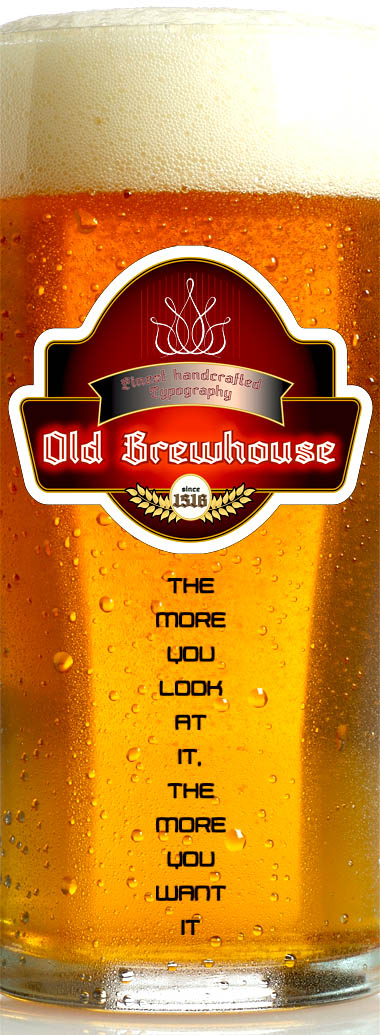
I like this o.o
The thick outlining strokes gives a nice add to the font. c=
my gosh this looks so coool
I raise my glass to you - very nice indeed.
Cool entry.
Nice. A real inline + blackletter and only the first entry ).
Absolutely fantastic! :)
Excellent blackletter. Getting thirsty...
What a marvelous font, pure and strong. Very hübsch : )
Greeeeat work, master! I'm waiting for the great fonts to come in the last days of this exciting Comp!
This is perfect. I love every glyph.
Very beer! I thought the inline areas could use more ornamental lines in the middle, but that would defeat the clarity that is achieved in the samples. Authentic look and feel.
Strong one, well rounded
LOVE IT
very nice '4'
This only lacks a long s.
Technically, a capital eszett plus _ch_ and _tz_ ligatures wouldn't be bad either.
Wonderfully shaped!
This only lacks a long s.
Technically, a capital eszett plus _ch_ and _tz_ ligatures wouldn't be bad either.
Wonderfully shaped!
What a wonderful blackletter. I planned to make a similar font (inline blackletter) for the competition, but there was no way I could complete it by the deadline. Can't you do anything about the size to fit within the 48 brick limit? I've been struggling with the same problem in the last 5 days.
What a perfect blackletter. The samples fit the feel of the font :)
classic beauty. good luck.